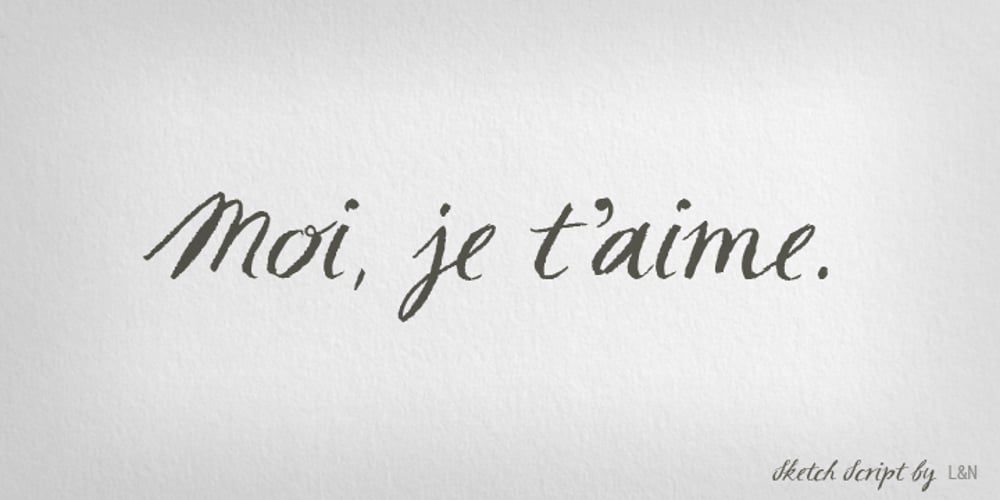
Sketch Script
Sketch Script font
Sketch Script Font Family was designed by Ursula Hitz and published by Letters&Numbers. Sketch Script contains 1 styles and family package options. Shabby-chic calligraphic script based on hand-drawn characters. Will work well in boutique and vintage environments, conveying a romantic, hand-made touch.